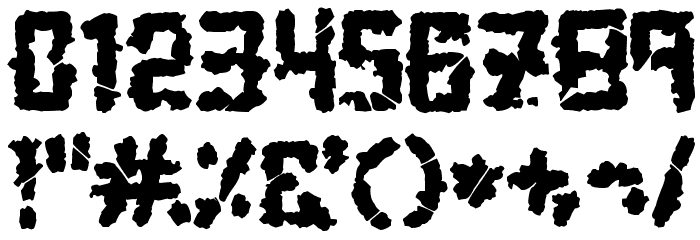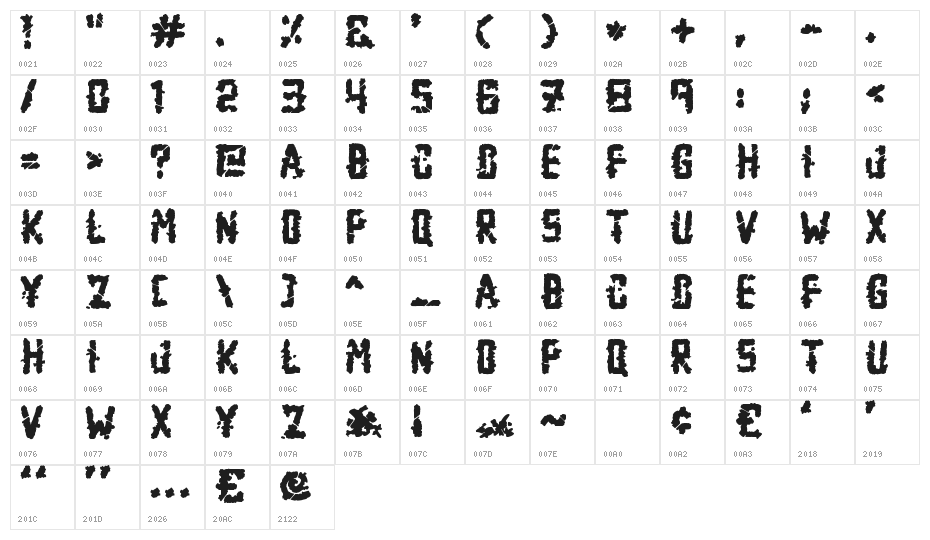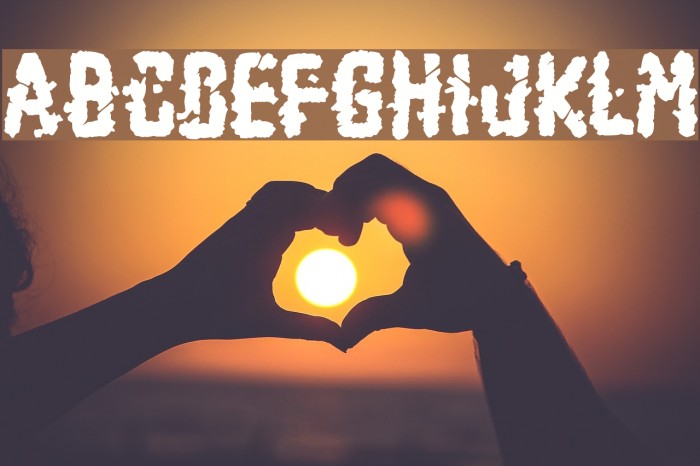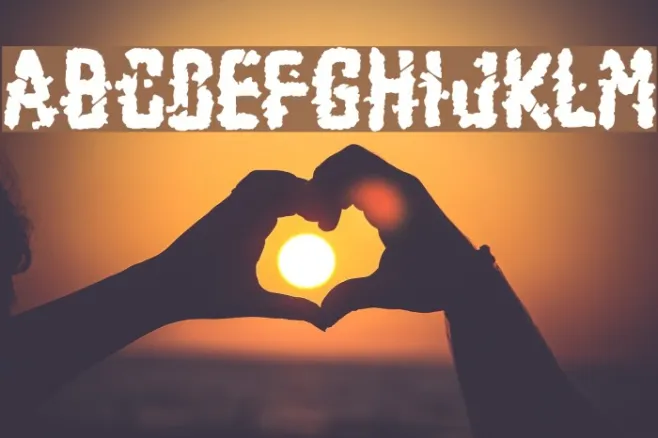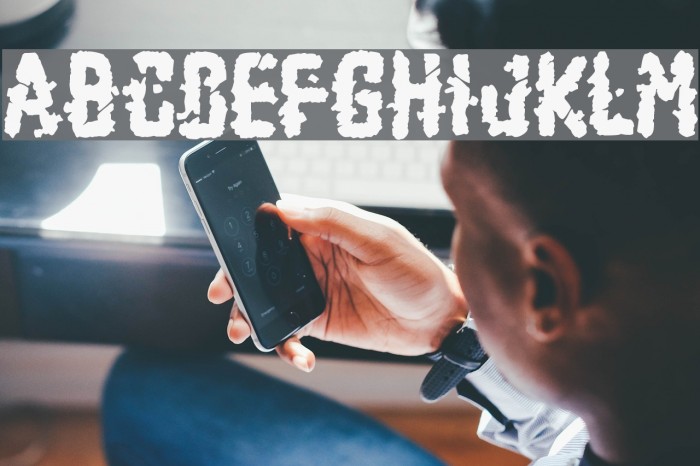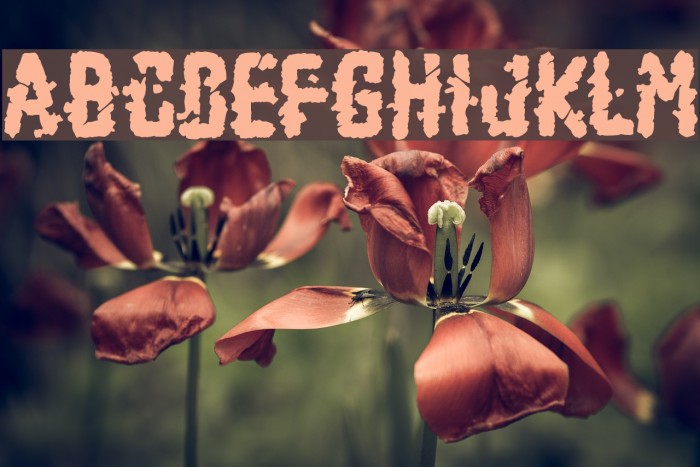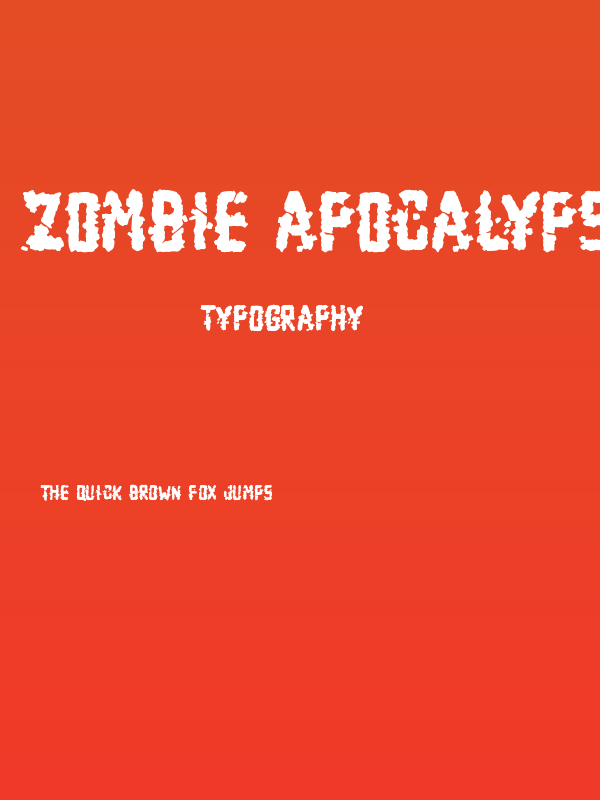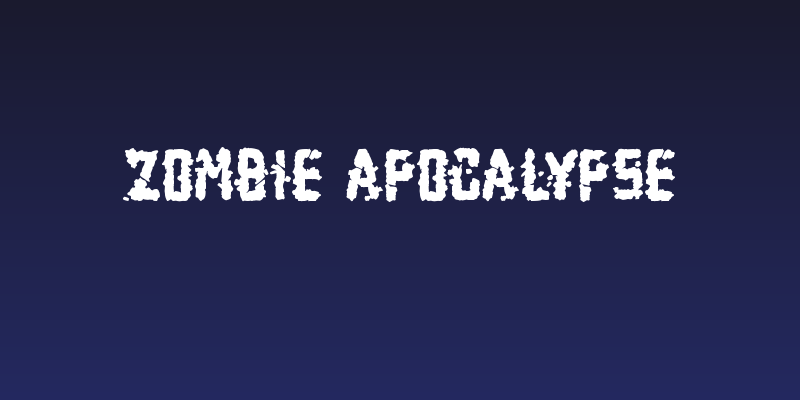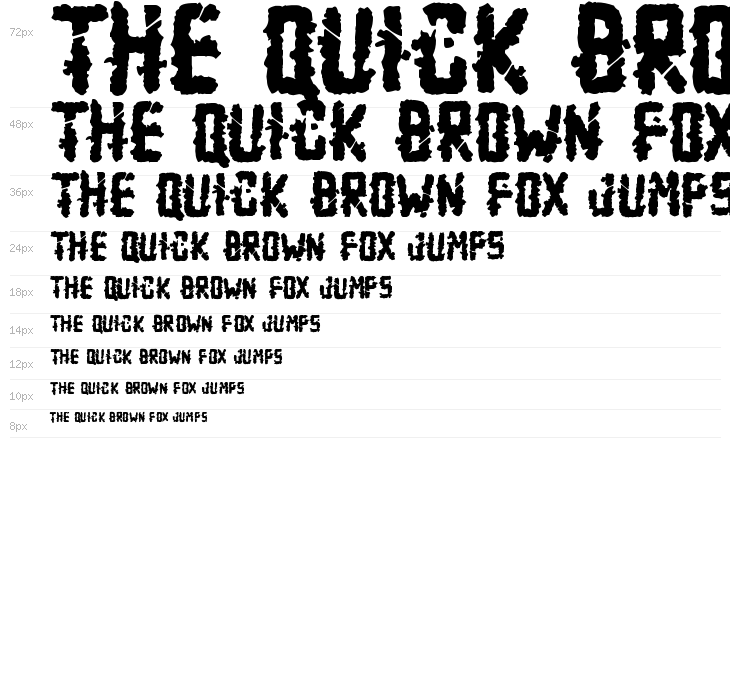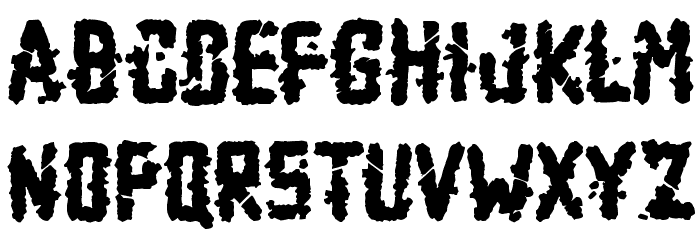
Zombie Apocalypse Font
Zombie Apocalypse Description
This font features a rugged, distressed appearance that evokes a sense of decay and chaos, reminiscent of a post-apocalyptic world. The characters are bold and heavily textured, with irregular edges that give the impression of being eroded or torn. This design choice creates a dramatic and intense visual impact, making it ideal for themes related to horror, survival, or dystopian settings. The uppercase and lowercase letters maintain a consistent style, ensuring readability while still embracing the chaotic aesthetic. Numbers and special characters follow the same design principles, providing a cohesive look across all text elements.
| Proposed Projects | Ideal for horror movie posters, video game titles, Halloween event flyers, or any project requiring a dramatic, edgy typeface. |